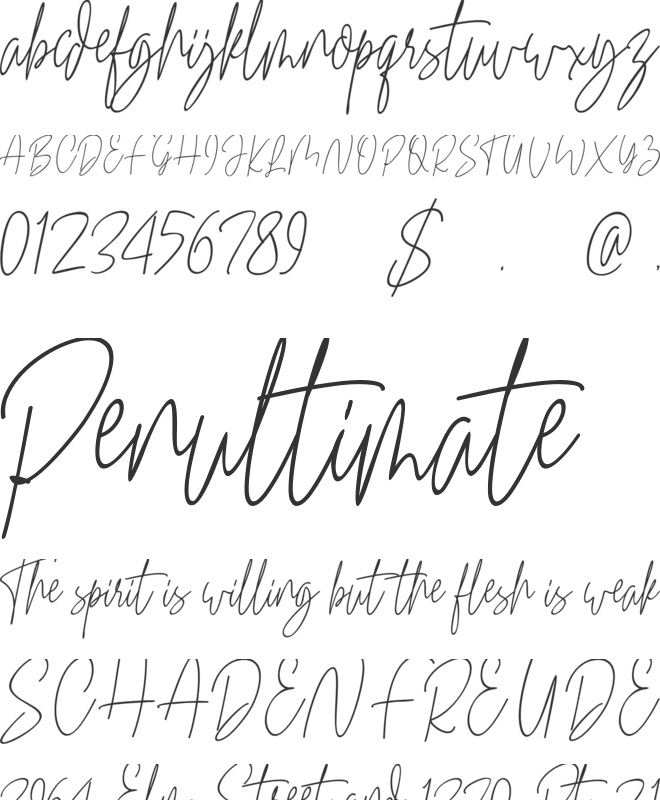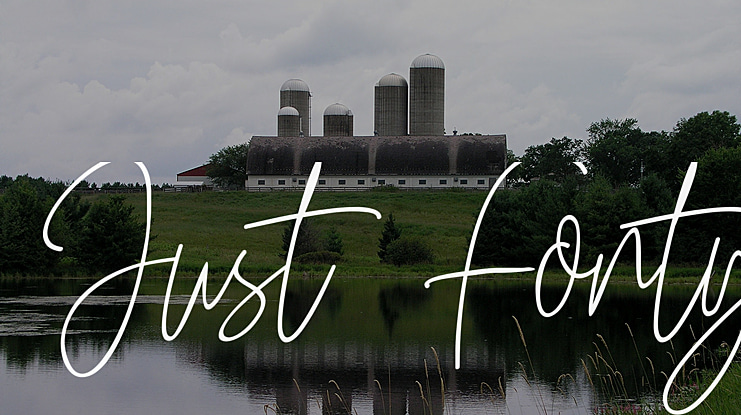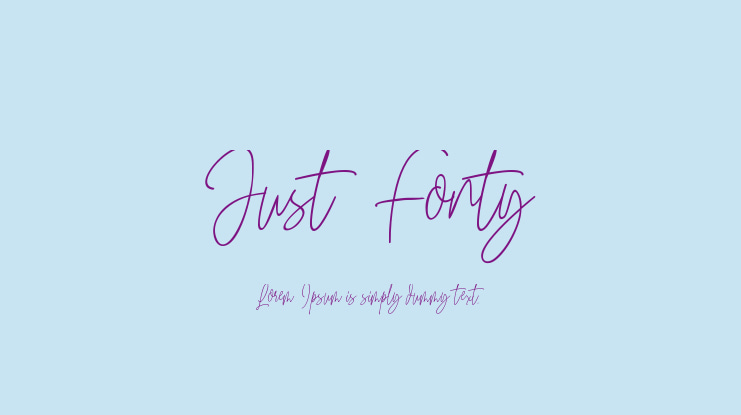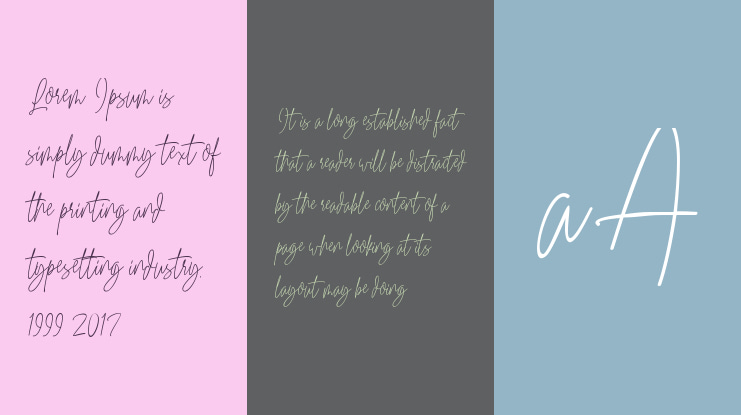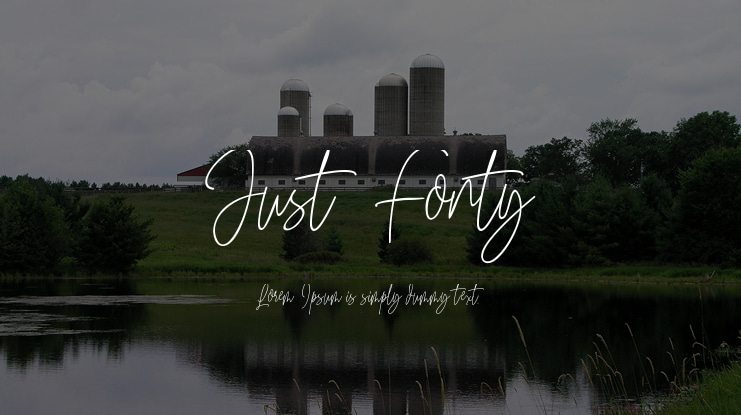
Just Fonty Font
Just Fonty, is my latest font with an interesting style and it is perfect to use for your design work. Can be used for various purposes. such as post, calligraphy, logos, posters, t-shirts, signage, labels, wedding invitations etc.